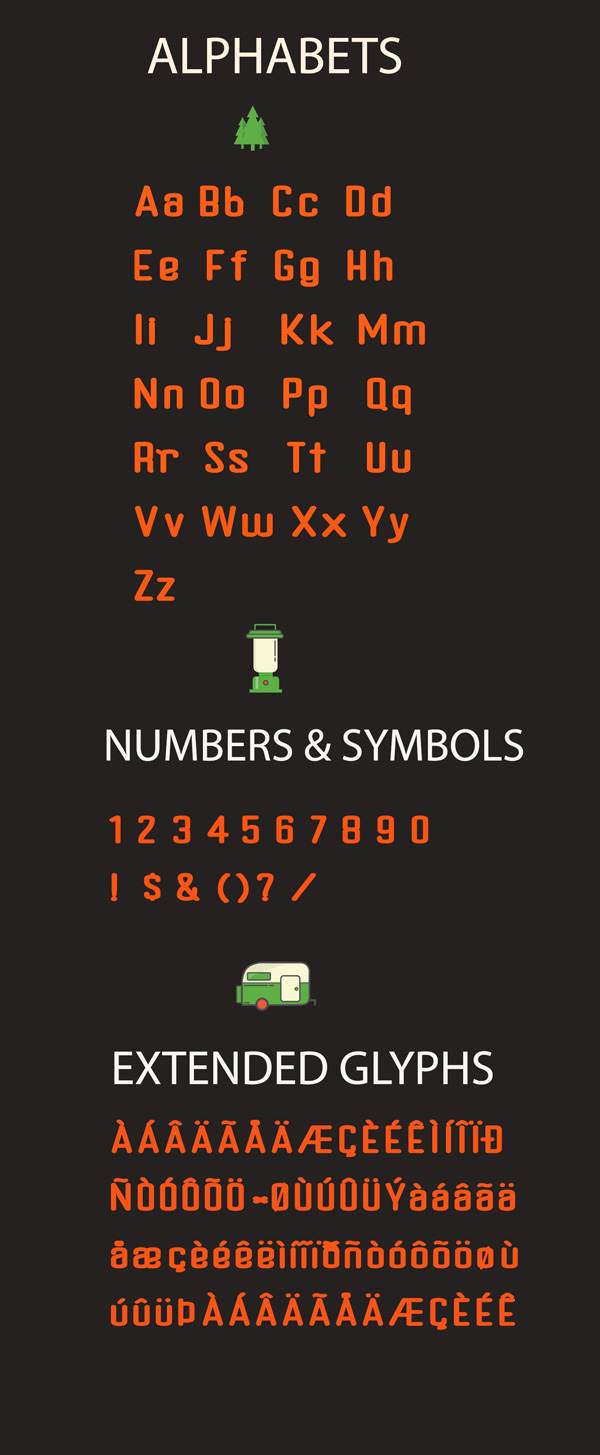
Camp Font
The typeface inspired by outdoors.It has a clean and minimal design with rounded edges.It symbolizes virility,youth and freshness.Camp is free for personal use. Designed by Ryan Anthony.